Choosing the right streetwear fashion fonts is essential for building a strong and recognizable urban brand. In the world of streetwear, typography is more than just text; it is identity, attitude, and culture. From logos to apparel prints, fonts play a key role in shaping how a brand is perceived.
Today, streetwear design is heavily influenced by music, skate culture, and urban lifestyle. Therefore, typography must reflect boldness, creativity, and authenticity. The right font can instantly communicate whether a brand feels edgy, premium, or playful.
In this article, we will explore the best streetwear fashion fonts, their characteristics, and how to use them effectively for urban branding.
Why Streetwear Fashion Fonts Matter in Urban Branding
Understanding streetwear fashion fonts is important because typography defines a brand’s visual voice. In a competitive fashion market, brands need to stand out quickly.
Streetwear fonts help:
- Create a strong brand identity
- Attract attention instantly
- Express personality and culture
- Build an emotional connection with the audience
Moreover, typography often becomes the main visual element on clothing such as hoodies, t-shirts, and caps. As a result, choosing the right font is crucial.
Characteristics of Streetwear Fashion Fonts
Streetwear typography has distinct features that make it unique.
1. Bold and Strong Letterforms
Streetwear fonts often use bold, bold shapes. This makes the design more visible, especially from a distance.
2. Urban and Edgy Style
These fonts reflect street culture. They may include rough edges, experimental shapes, or graffiti-inspired elements.
3. High Visual Impact
Streetwear fonts are designed to stand out. Therefore, they are often used for logos and headlines.
4. Versatile and Expressive
From minimal designs to complex styles, streetwear fonts can adapt to different branding needs.
Best Streetwear Fashion Fonts for Urban Branding
Here are some of the best streetwear fashion fonts you can use to create powerful designs.
Flaters
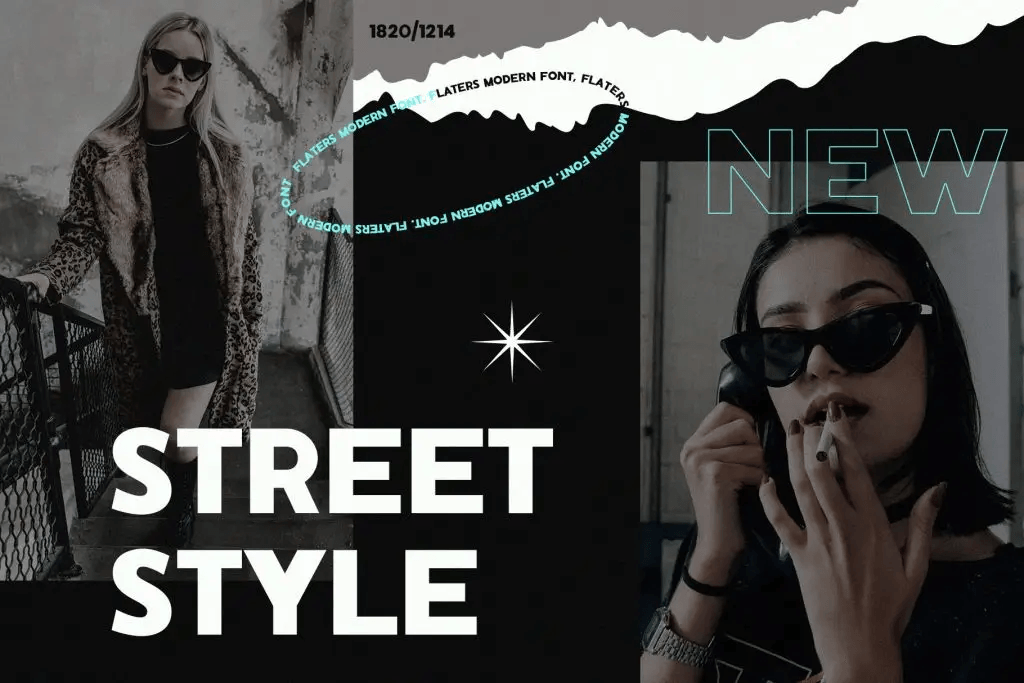
Flaters is a bold sans-serif font that combines clarity with style, making it perfect for streetwear branding.
Best for:
- Apparel branding
- Logo design
- Visual Identity Projects
Flaters are a great choice for anyone looking to convey a message clearly and stylishly.
Falermo
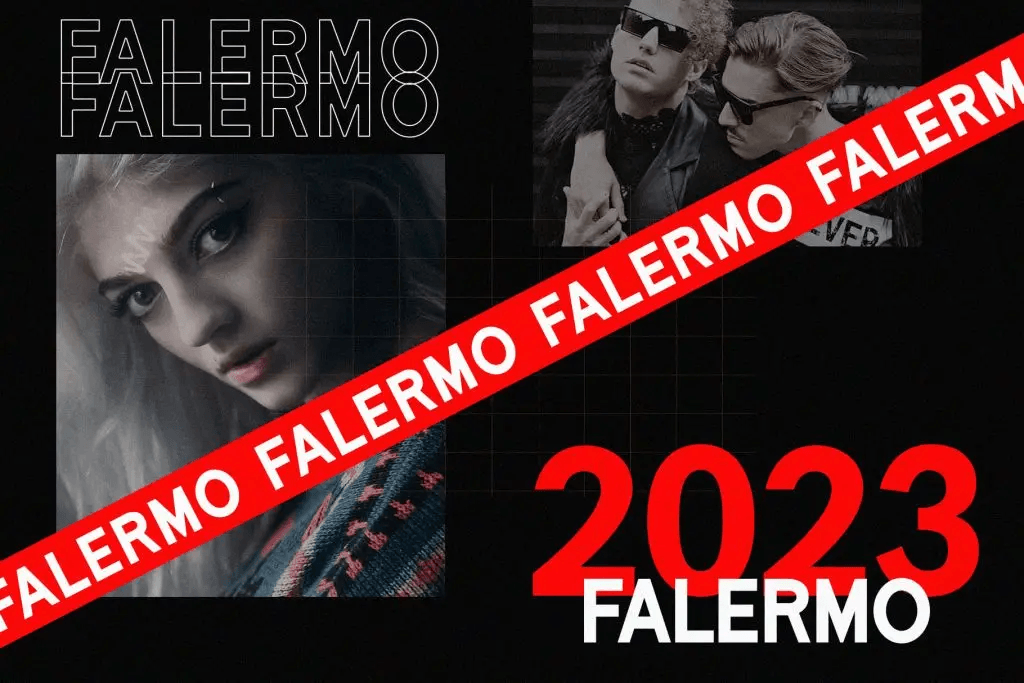
Falermo is a sleek sans-serif font that brings sophistication and modernity to any project.
Best for:
- Bold logos
- Fashion campaigns
- Streetwear posters
Falermo offers the perfect balance of style and refinement.
Shaqera
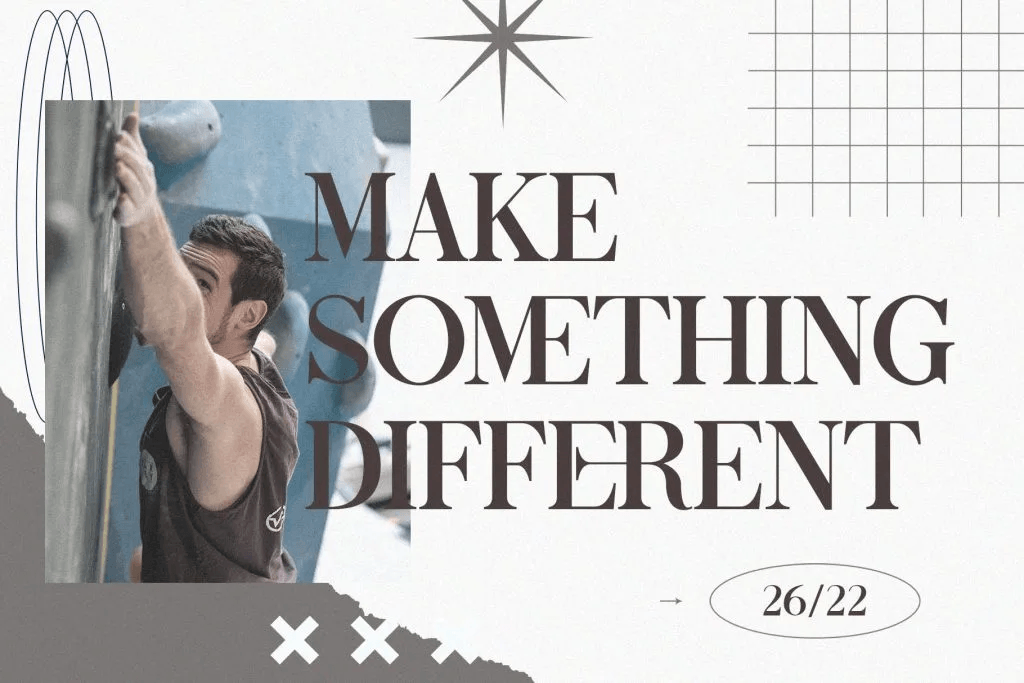
Shaqera is a stylish serif font with clean geometric letterforms and sharp angles that exude confidence and innovation.
Best for:
- Creative branding
- Social media graphics
- Fashion lookbooks
Shaqera features clean geometric letterforms with sharp angles, offering a sleek design inspired by the modernist movement.
How to Choose Streetwear Fashion Fonts
Choosing the right streetwear fashion fonts depends on your brand identity.
1. Define Your Brand Personality
First, decide what your brand represents:
- Clarity → Flaters
- Bold → Falermo
- Creative → Shaqera
2. Consider Your Target Audience
Different audiences respond to different styles. For example, younger audiences may prefer experimental fonts, while older audiences may prefer clean designs.
3. Focus on Versatility
Your font should work across different applications:
- Clothing
- Social media
- Website
- Packaging
How to Use Streetwear Fashion Fonts Effectively
Using streetwear fashion fonts effectively requires a strategy.
1. Use Fonts as the Main Visual Element
In streetwear, typography often becomes the focal point. Therefore, keep other elements minimal.
2. Combine with Simple Fonts
Pair bold streetwear fonts with simple sans-serif fonts for balance.
Example:
- Streetwear font → Logo
- Sans-serif → Supporting text
3. Experiment with Layout
Streetwear design allows creativity. Try:
- Oversized text
- Layered typography
- Distorted layouts
4. Use Strong Color Contrast
Colors like black, white, red, and neon tones enhance streetwear typography.
Conclusion
Choosing the right streetwear fonts is essential for creating strong, impactful urban branding. Fonts like Flaters, Falermo, Shaqera, and Slime Rage offer unique styles that can define your brand identity.
Additionally, by understanding typography and applying the right design principles, you can create streetwear designs that stand out in a competitive market.
In the end, typography is not just about style; it is about expressing culture, attitude, and identity.